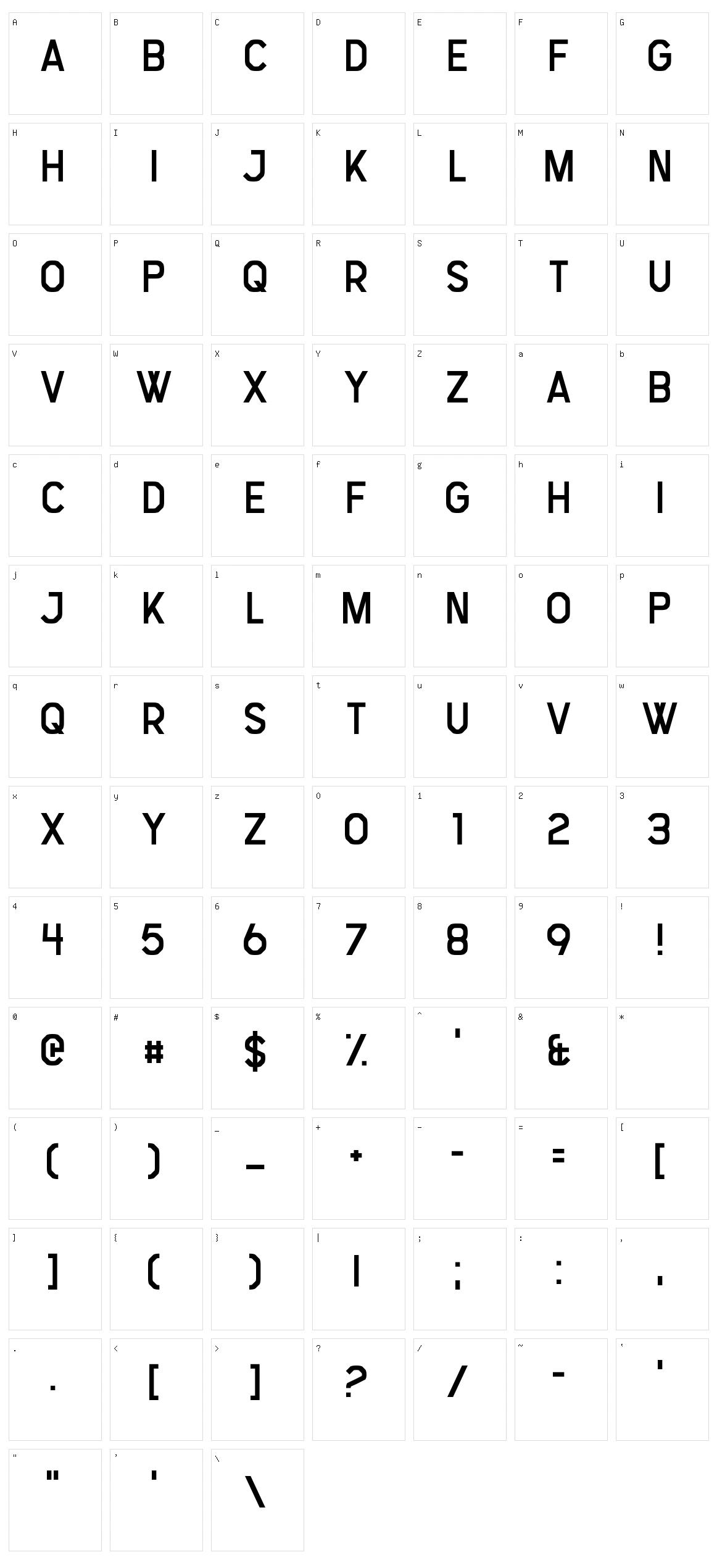
The free font Stress Genesis is carefully designed by Chequered Ink, showcasing a thoughtful balance of creativity and usability and falls under the Sans serif font style. When you download the ZIP file, it contains only 11.07 KB of font files, making it lightweight and quick to download. Please review the license details below to understand permitted usage and distribution rights. If license information is not available, we recommend using this font for personal projects only or contacting the author directly for commercial usage permissions.